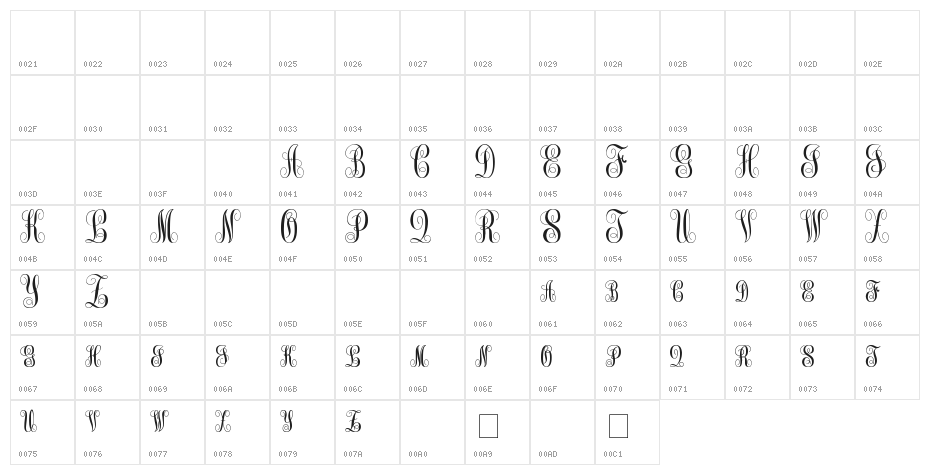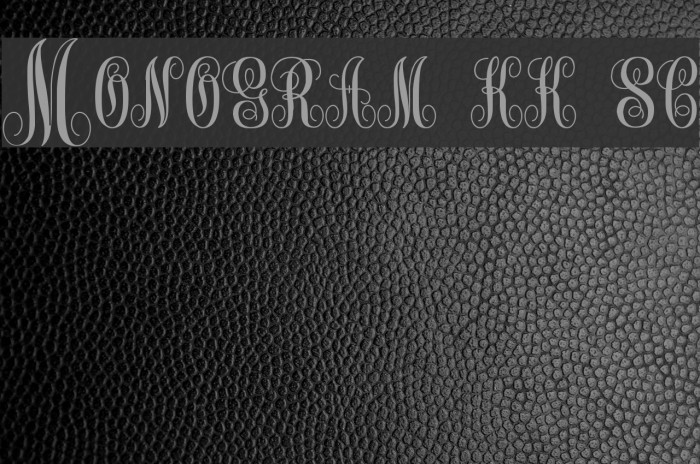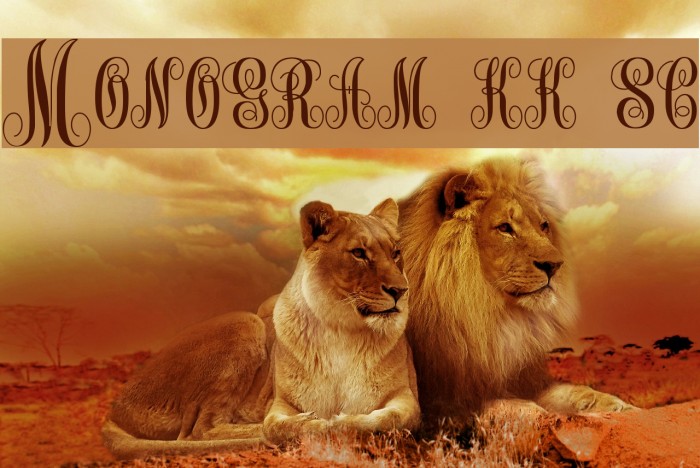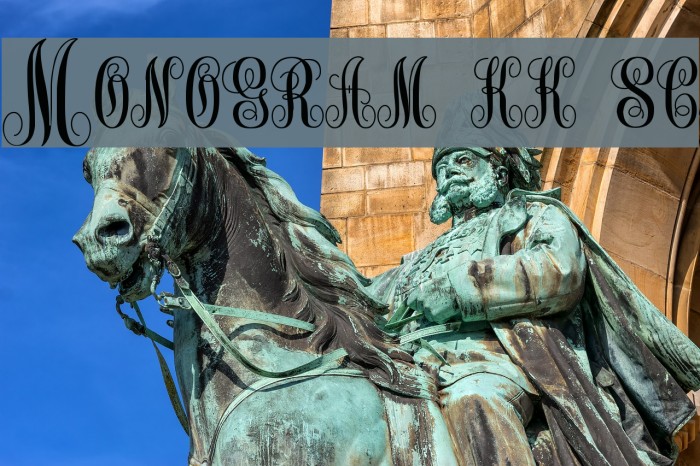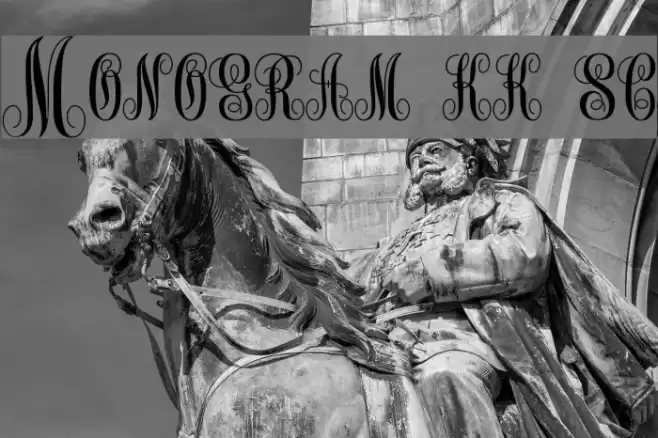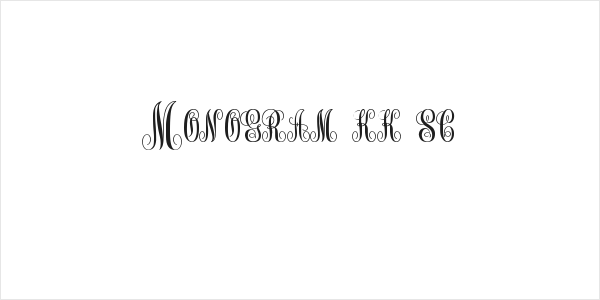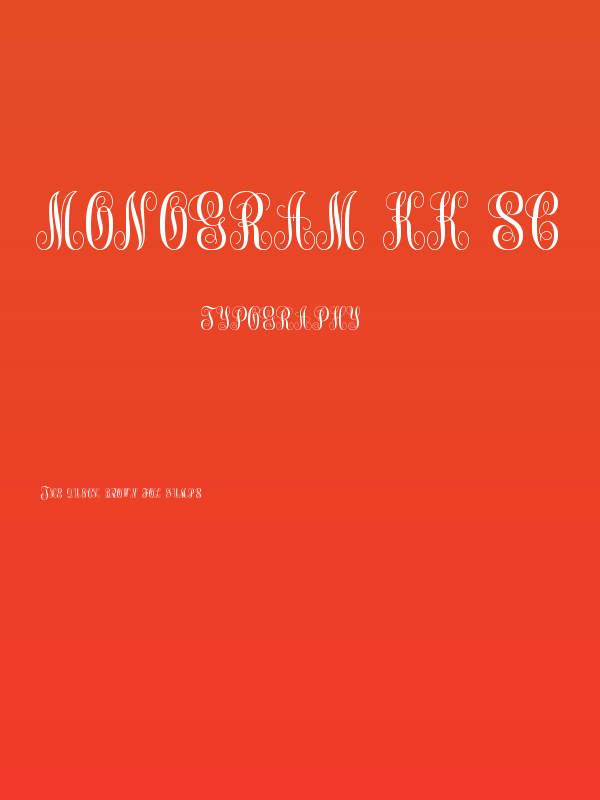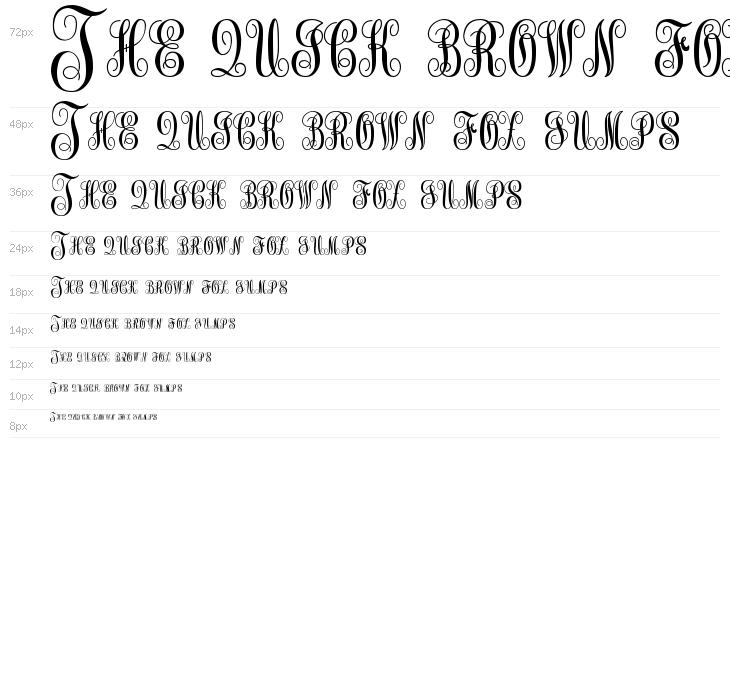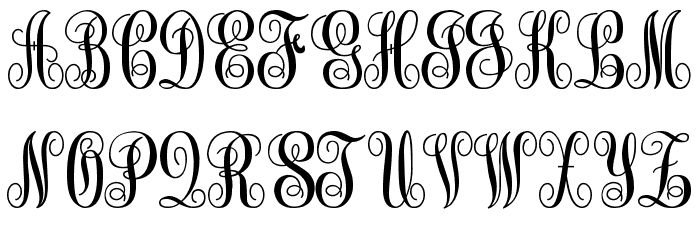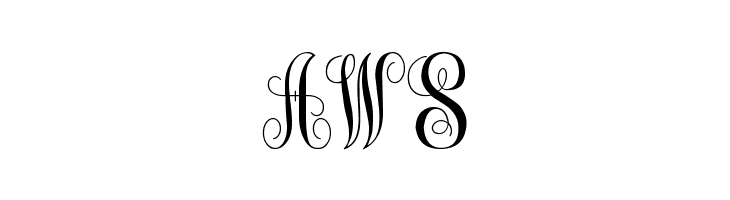
Monogram kk sc Font
Monogram kk sc Description
This font is an elegant and ornate script style, characterized by its intricate swirls and flourishes. Each letter is crafted with a high level of detail, making it ideal for decorative purposes. The uppercase letters are particularly elaborate, with loops and curves that extend beyond the main body of the letterforms. The lowercase letters maintain a consistent style, though they are slightly less embellished. This font exudes a sense of sophistication and luxury, making it suitable for formal invitations, branding, and other high-end design projects. The overall appearance is both classic and artistic, with a nod to traditional calligraphy.